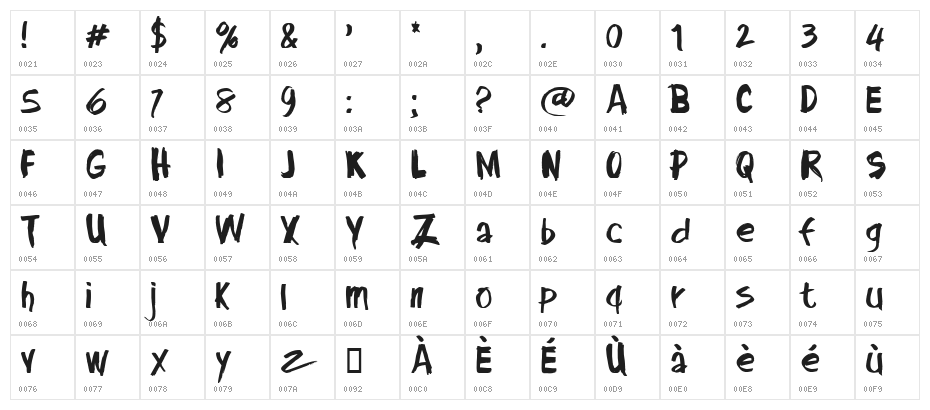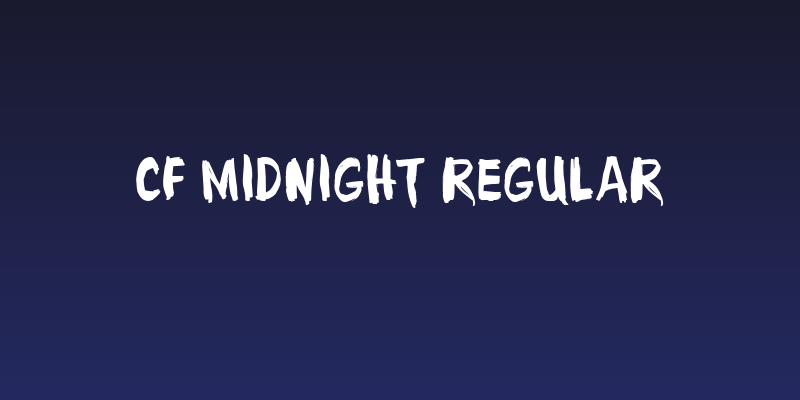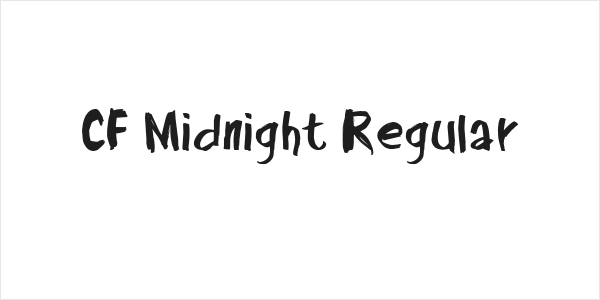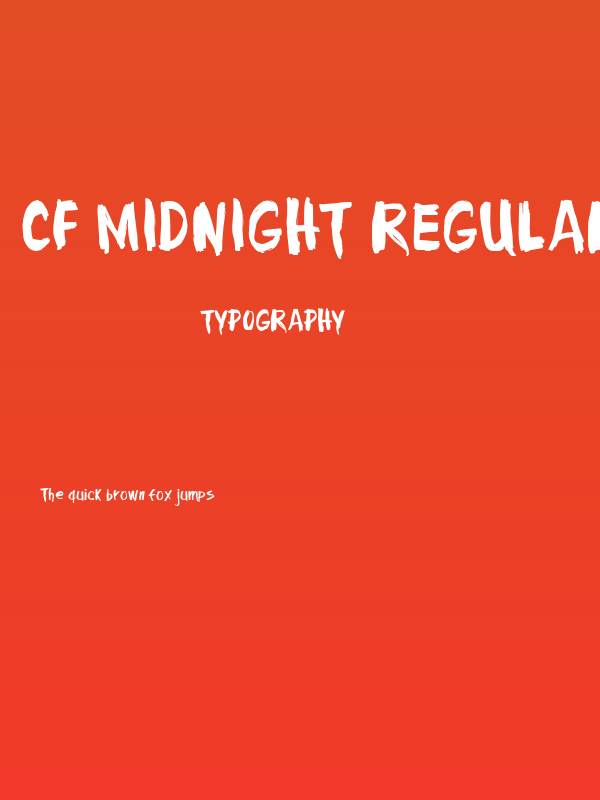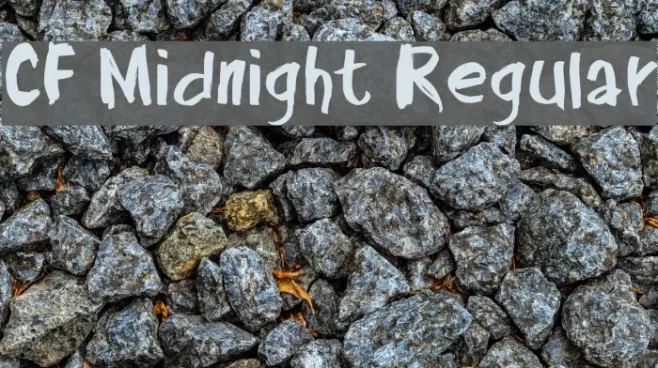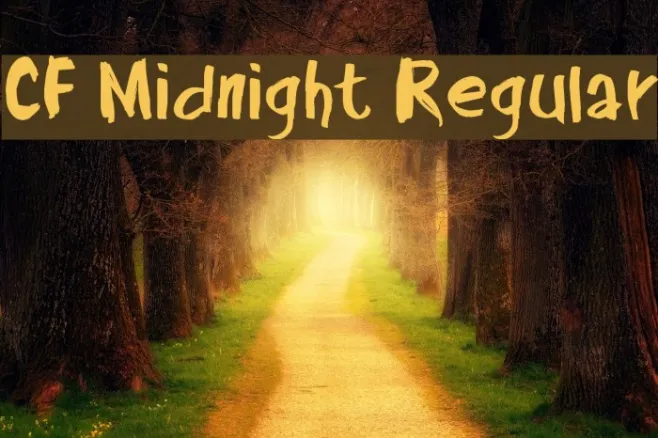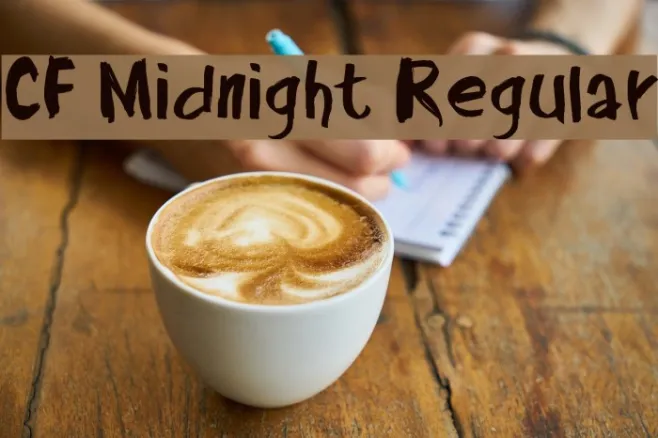
CF Midnight Regular Font
CF Midnight Regular Description
This font features a bold and expressive style, characterized by its brush-like strokes and dynamic appearance. The uppercase and lowercase letters exhibit a hand-drawn quality, with irregular edges and varying thickness that add to its energetic feel. The numerals and special characters maintain this lively aesthetic, making the font suitable for creative and artistic projects. Its unique style is both eye-catching and versatile, allowing it to stand out in various design contexts. The overall impression is one of spontaneity and creativity, making it ideal for projects that require a personal touch.
| Proposed Projects | Ideal for posters, album covers, artistic branding, and creative advertisements. |